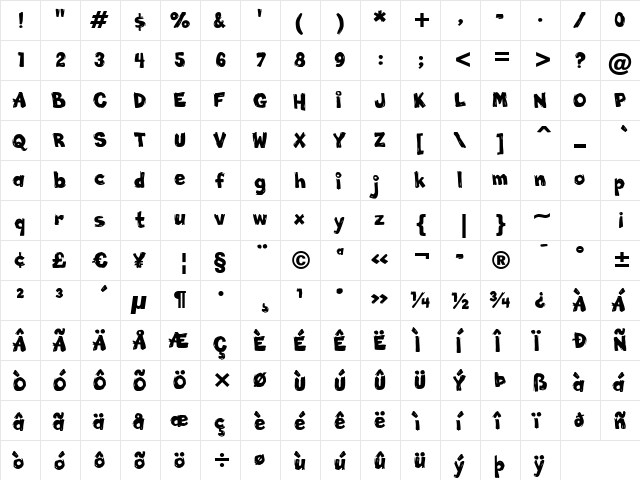
Little Piggy BTN Regular
Design Context for Little Piggy BTN Typeface
Little Piggy BTN is a composed and adaptable typeface that performs quietly and consistently across a wide range of design contexts.